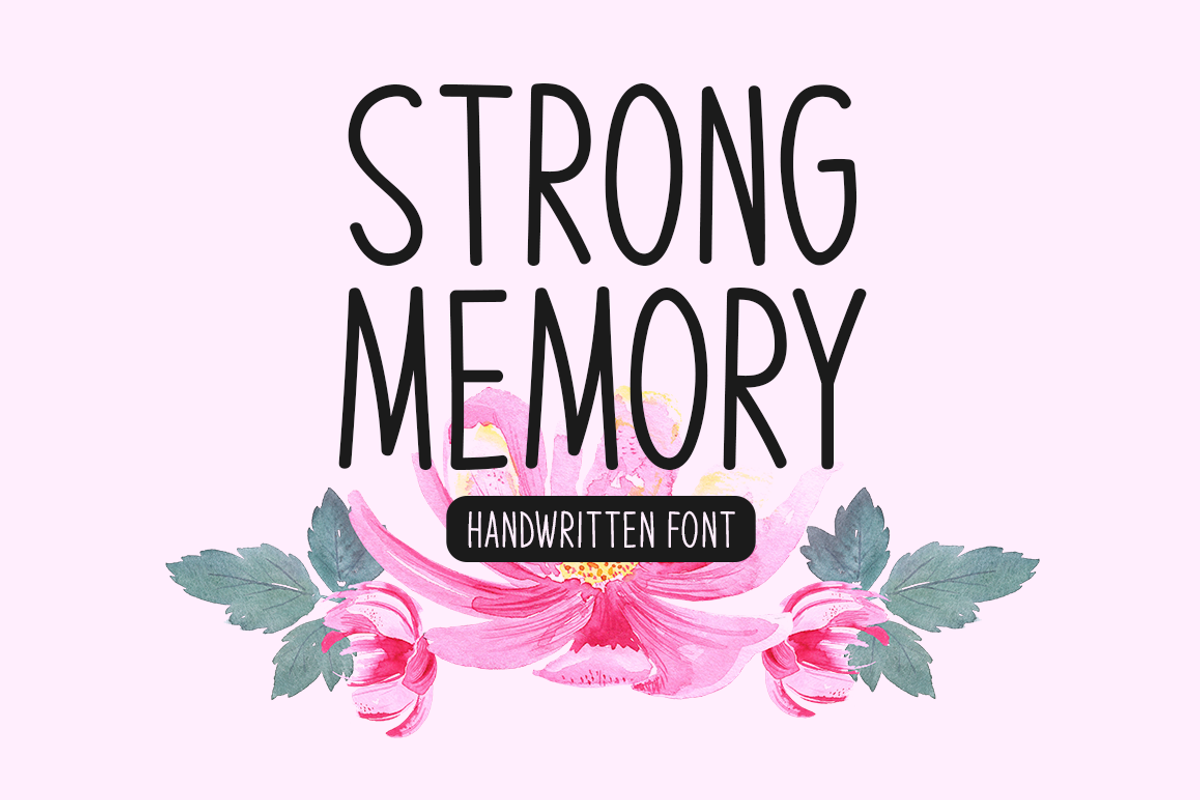
Strong Memory Typeface Free Download
Strong Memory Typeface Free Download is a bold and impactful font designed to make a statement. Featuring sharp, clean lines and a modern aesthetic, this typeface is perfect for creating powerful logos, branding, headlines, posters, and more. Its strong visual presence ensures that your message is both striking and memorable.
Whether you're working on a project for a tech brand, an event promotion, or any design that needs a commanding look, Strong Memory Typeface Free Download provides the perfect blend of strength and readability.
Its versatile design allows it to shine in both print and digital applications, ensuring your typography stands out across all platforms.